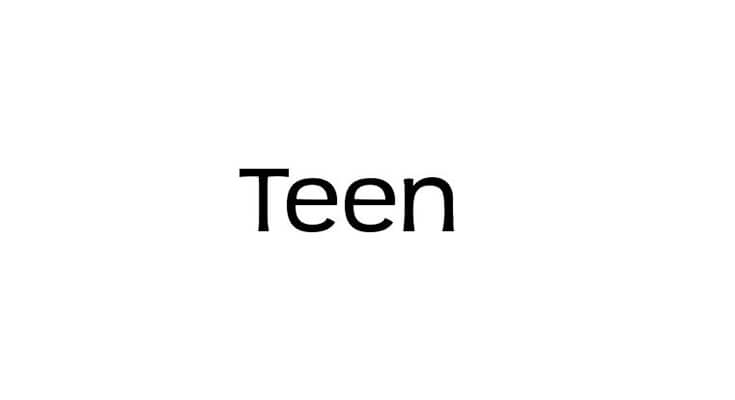
Teen Font is a superelliptical, casual flare display typeface that offers upper and lowercase characters, numerals, various symbols, and punctuation. Use it as a display text or for titles.
Created by Typodermic Fonts that is a font company located in Nagoya, Japan. It was founded in 2001 by Raymond Larabie in Canada.
One thing you will notice is that its texture has casual flare and a tall x-height. But this really a unique thing applied by the designer over it.
Teen Font has come in 6 weights that possess Truetype features. This font contains 294 defined characters and 290 unique glyphs.
Style:Basic, Sans Serif, Display
This font features clean, modern lines and a bold design that makes it ideal for use in a range of design applications, from digital media to print materials.
This fantastic typeface is perfect for creating template designs for social media channels. You can create signage designs, display designs, documents, assignments, social media posters, headers, titles, cards, and brochure layouts using this comfortable typeface.
This typeface includes a full set of uppercase and lowercase letters, numbers, and symbols, making it versatile for use in various design projects.